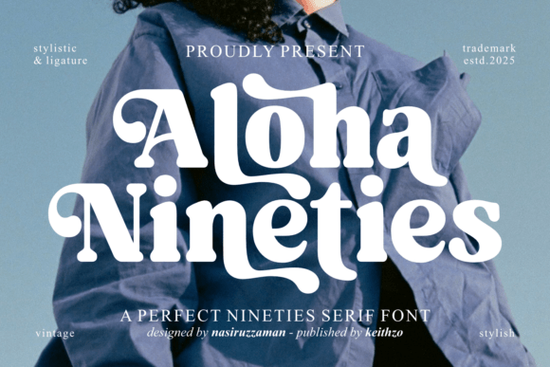
If you're looking for a font that captures the bold, unapologetic spirit of the 1990s without feeling dated, Aloha Nineties Font might be exactly what your next project needs. It blends retro charm with clean, modern usability making it especially handy for designers, crafters, and small business owners who want their work to feel nostalgic yet fresh.
This retro vintage serif font stands out thanks to its confident weight and subtle quirks. What really gives it personality are the alternative swash characters, which let you add flair to headlines, logos, or packaging without overcomplicating your layout. Whether you’re designing t-shirts for an online shop, creating social media graphics, or developing a brand identity with a throwback vibe, Aloha Nineties delivers both style and function.
What makes Aloha Nineties work for real-world projects?
Unlike some novelty fonts that look great in mockups but fall short in practice, Aloha Nineties includes full character sets uppercase, lowercase, numerals, punctuation, and even multi-lingual support. That means you won’t run into missing glyphs when working on international campaigns or detailed layouts.
Its versatility shows up across formats:
- Print-on-demand sellers can use it for eye-catching apparel, mugs, or posters that resonate with 90s nostalgia.
- Small businesses launching a retro-themed product line will find it ideal for labels, signage, and packaging.
- Digital creators can apply it to YouTube thumbnails, Instagram stories, or blog headers to create consistent, memorable visuals.
- Book and magazine designers might use it for chapter titles or feature spreads where a bold serif adds editorial punch.
How does it compare to other retro serif fonts?
Many 90s-inspired fonts lean heavily into grunge or handwriting styles, which can limit their use in professional contexts. Aloha Nineties avoids that trap by keeping its structure clean and legible while still feeling distinctive. The swash alternates aren’t overwhelming they’re optional accents you can sprinkle in for emphasis, not distractions that dominate your design.
For example, using a standard “A” keeps your logo readable at small sizes, but swapping in the swash version for a poster headline adds instant character. This balance is why it works well across both digital and physical media.
Who should consider using this font?
Really, anyone who wants to inject a bit of 90s confidence into their visuals without going full neon windbreaker. It’s particularly useful if you:
- Run an Etsy shop selling retro-themed stickers, greeting cards, or apparel
- Create content around pop culture, music, or fashion from the 90s
- Need a bold serif for branding that feels human and approachable
- Prefer fonts that offer stylistic flexibility without requiring extra plugins or software
Before you download: a quick checklist
To make the most of Aloha Nineties Font, keep these practical tips in mind:
- Test readability first. While the swash characters are fun, stick to standard glyphs for body text or small-scale uses.
- Pair it wisely. It works best with simple sans-serifs (like Helvetica or Montserrat) to avoid visual clutter.
- Use it with intention. The 90s vibe is strong here make sure it aligns with your brand voice or campaign theme.
When used thoughtfully, Aloha Nineties adds just enough retro energy to stand out without shouting. That quiet confidence is what makes it a reliable tool, not just a passing trend.